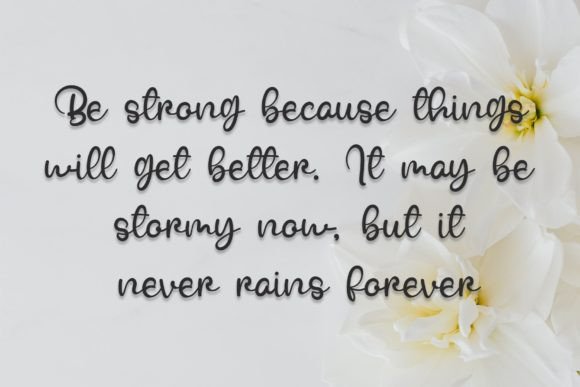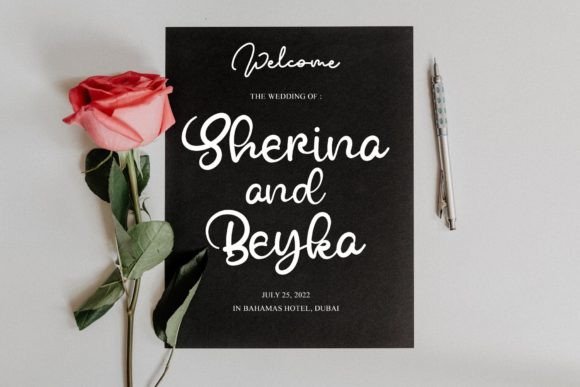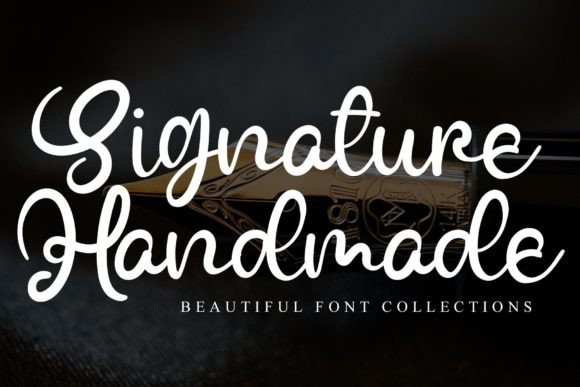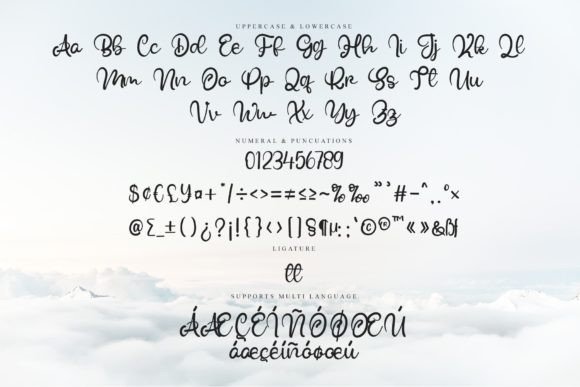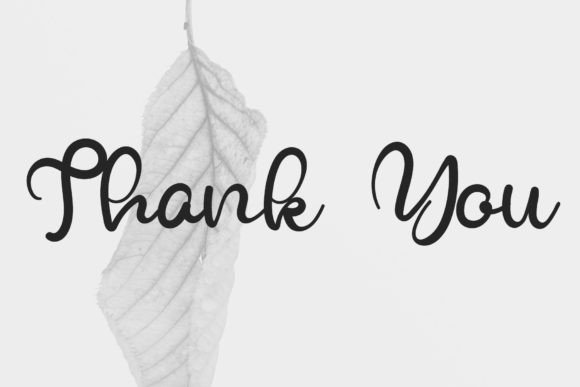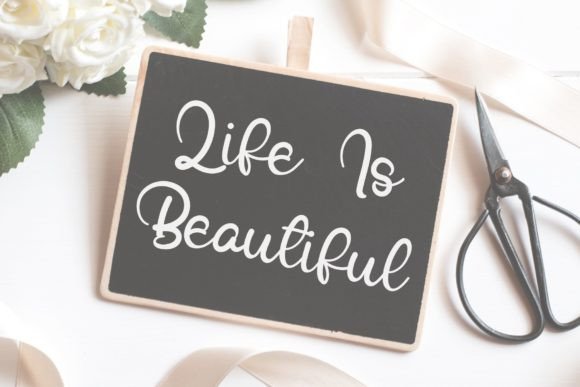
While Font
About While Font
“While: Elegant and Dainty Handwritten Font with Delicate Swashes for Crafty Ideas
Introducing ‘While,’ an elegant and dainty handwritten font featuring sweet and delicate swashes. This original font offers a unique look that will appeal to a wide range of crafty ideas, making it perfect for letterheads, titles, stationery, and more. ‘While’ is not just a font; it’s a design asset that brings a touch of elegance to your projects, making them stand out with their original and delicate style.
The elegant and dainty design of ‘While’ sets it apart, making it a versatile choice for various design applications. The delicate swashes add a sense of sophistication, enhancing the overall aesthetics and creating a visually pleasing experience.
For letterheads, titles, and various crafty design projects, ‘While’ becomes an eye-catching choice, infusing a sense of elegance and originality into your text. The font’s delicate and elegant design contributes to a stunning and memorable look.
In various creative projects, ‘While’ serves as a unique element, creating a visual impact with its elegant and dainty style. Its versatility adds a touch of sophistication to your crafty endeavors, making it suitable for a wide range of contexts.
‘While’s’ ability to bring a touch of elegance to design projects makes it a valuable addition to your font library. Whether you’re working on stationery or creative titles, this font brings an original and stylish character to your designs.
In conclusion, ‘While’ is more than just a typeface; it’s a design companion that adds elegance and originality to your creative toolkit. Let ‘While’ be the artistic element that transforms your letterheads, titles, and various crafty projects. Embrace the elegant and dainty charm of ‘While,’ and watch as it elevates your designs into visually enchanting and memorable experiences.”